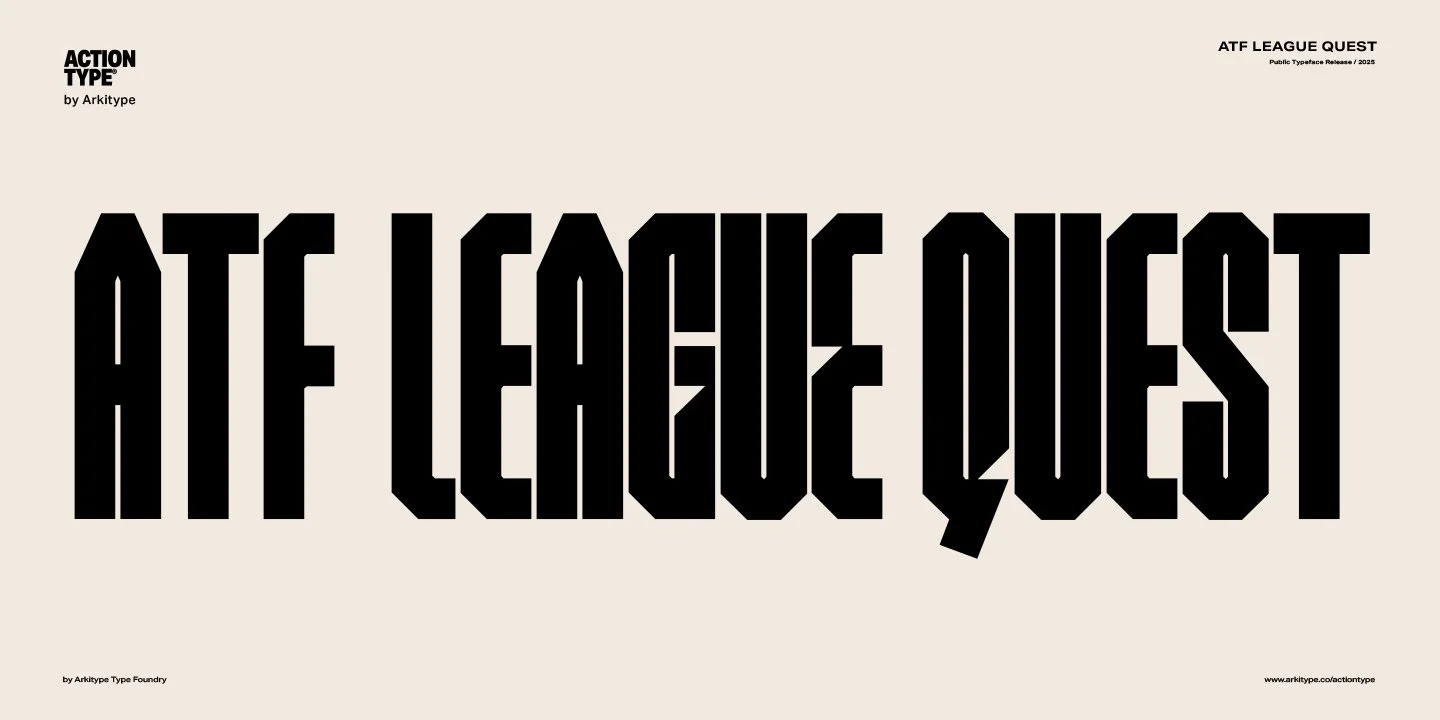
What is ActionType by Arkitype
ActionType is a focused offering from Arkitype, dedicated entirely to sports-driven type design from custom team and brand Type design to high-impact kit numbering. Built for moments in competition, and considerate of all the History behind the club brand. ActionType offers custom typefaces and design assets that empower brands in sport and e-sports
One pillar of ActionType is jersey numbers: carefully crafted numeral systems designed specifically for athletic use. These numbers are engineered for instant readability, strong personality, and seamless integration with custom lettering systems. From grassroots teams to professional-level branding, ActionType numbers are built to carry identity, pride, and performance.